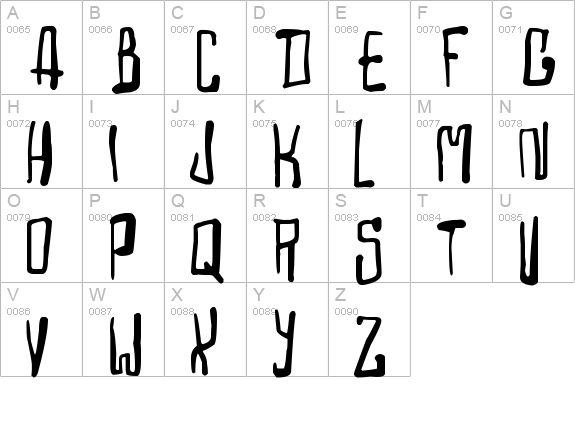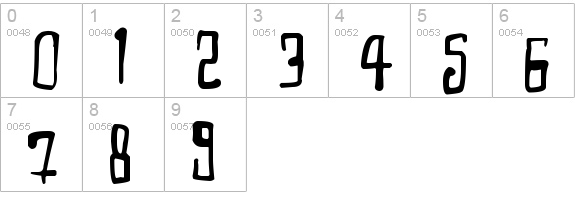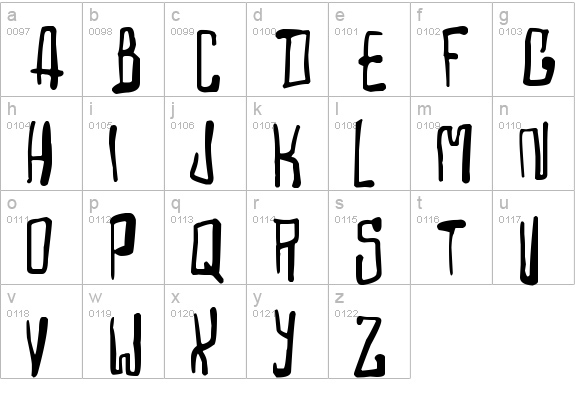
Madhouse is a free for personal use font in the Theme > Horror category, designed by Darrell Flood. It has been downloaded 27 times and is available for Windows, Mac and Linux.
Madhouse font is a bold and eye-catching typeface that exudes a sense of creativity and edginess. Its unique and intricate design makes it perfect for projects that require a touch of drama and flair. The sharp angles and exaggerated strokes of Madhouse font create a sense of intensity and energy, making it ideal for grabbing attention and making a statement.